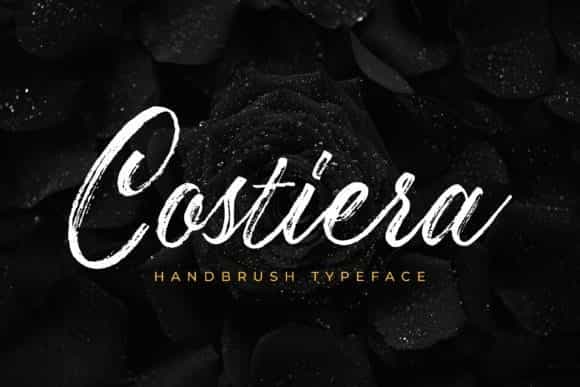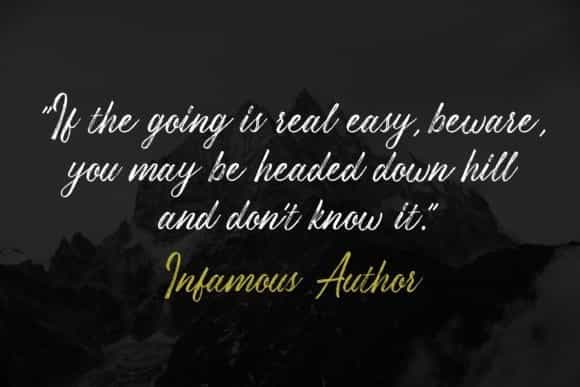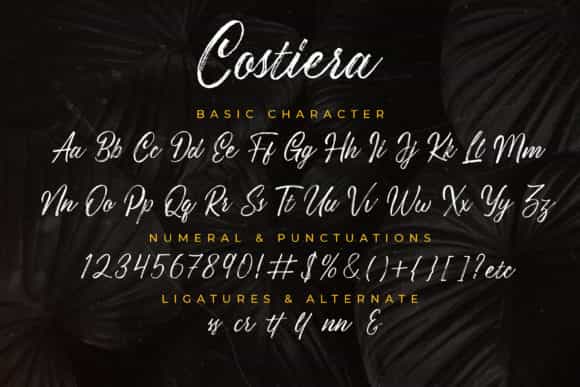
Discover Costiera Hand Brush Font, part of the Brush collection—a versatile and unique font perfect for adding a personal touch to your projects. Download it for free and enjoy crafting designs with style, from invitations to social media posts. This font is available exclusively for personal use, giving you the freedom to create without limits. Unlock your creativity with Costiera Hand Brush Font today!
Costiera hand brush font offers a take on design, with its look and natural irregular baseline. It also features characters and ligatures. Perfect for titles apparel designs invitations book titles stationery quotes branding logos greeting cards t shirts packaging posters and more.